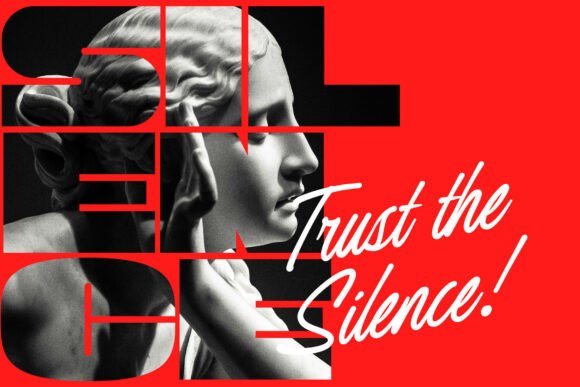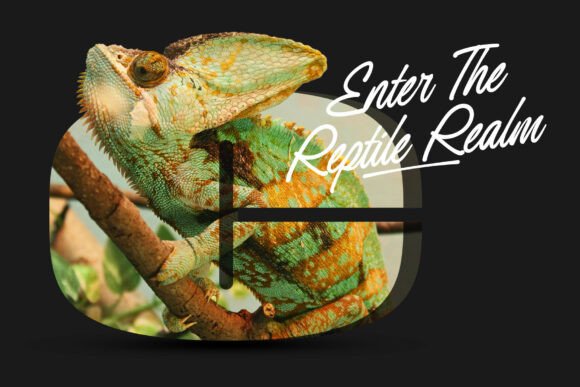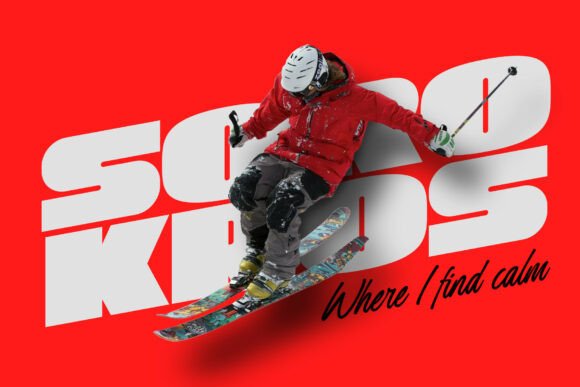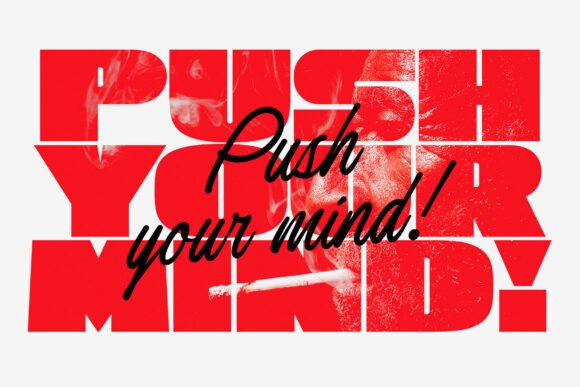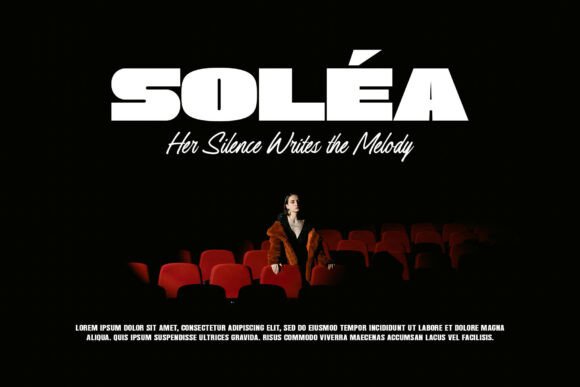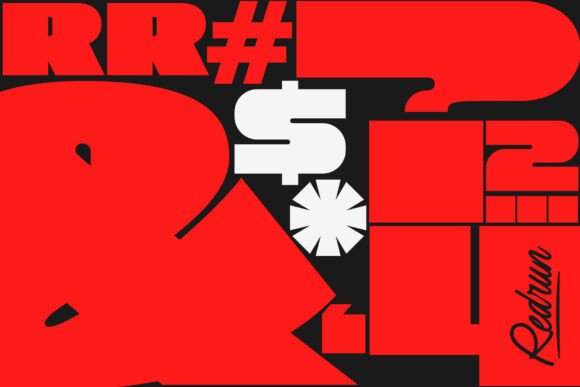
Introduction to Redrun Font
Have you ever found yourself stuck in front of a blank canvas, staring at a blank page, and wondering how to bring your creative vision to life? The moment when the perfect design element clicks into place can be exhilarating, and it’s exactly this feeling that the Redrun Font aims to evoke.
As a valuable design resource, Redrun Font is a game-changer for creatives looking to elevate their projects with a high-quality, modern touch. This versatile font duo seamlessly combines the strength of a bold display font with the personal energy of a handwritten script, making it the perfect choice for a wide range of design needs.
Whether you’re working on a branding project, crafting a poster, or designing digital ads, Redrun Font delivers a clean, balanced appearance that’s sure to grab attention. And the best part? You can download it for free, with a transparent background that allows for endless design possibilities.
Key Features of Redrun Font
- High-quality, unique design perfect for creative projects, including posters, flyers, and social media graphics.
- Features a bold, eye-catching design ideal for grabbing attention in various creative projects.
- Designed to be a versatile design resource, suitable for a wide range of creative projects, from advertising to editorial content.
Honest Review: Redrun Font
I recently stumbled upon the Redrun Font and I must say, it’s been a game-changer for my creative projects. As a designer, I’m always on the lookout for high-quality design resources that can elevate my work. The Redrun Font does just that.
- ✨ Unique and modern design aesthetic that sets it apart from other fonts
- ✨ Great for titles and headings, adding a touch of sophistication to any design
- ✨ Transparent background, making it easy to work with and manipulate in design software
- ⚠️ Limited character set, which may not be suitable for extended text-based projects
- ⚠️ Not ideal for small font sizes, as it may become difficult to read
Overall, I’m impressed with the Redrun Font. It’s a fantastic design resource for creative projects, and I appreciate that it’s available as a free download. With a little creativity and experimentation, I’m sure it can be used in a wide range of applications.
How to Use Redrun Font
Getting the Most Out of Redrun Font
To get the most out of the Redrun Font, use it with a transparent background to create a clean and modern design. You can also combine the Redrun Font with other design elements, such as images and shapes, to create a unique and eye-catching design.
The Redrun Font is perfect for a variety of creative projects, including logos, brochures, and business cards. It is also suitable for presentations, documents, and social media graphics. With its high-quality design and transparent background, the Redrun Font is a valuable design resource for any creative project.
Alternatives to Redrun Font
Fontin is a high-quality sans-serif font ideal for creative projects requiring a clean and modern design resource. It features a transparent background and is suitable for a wide range of applications, from headings to body text.
When to use: Fontin is perfect for modern websites, apps, and digital products that require a sophisticated look.